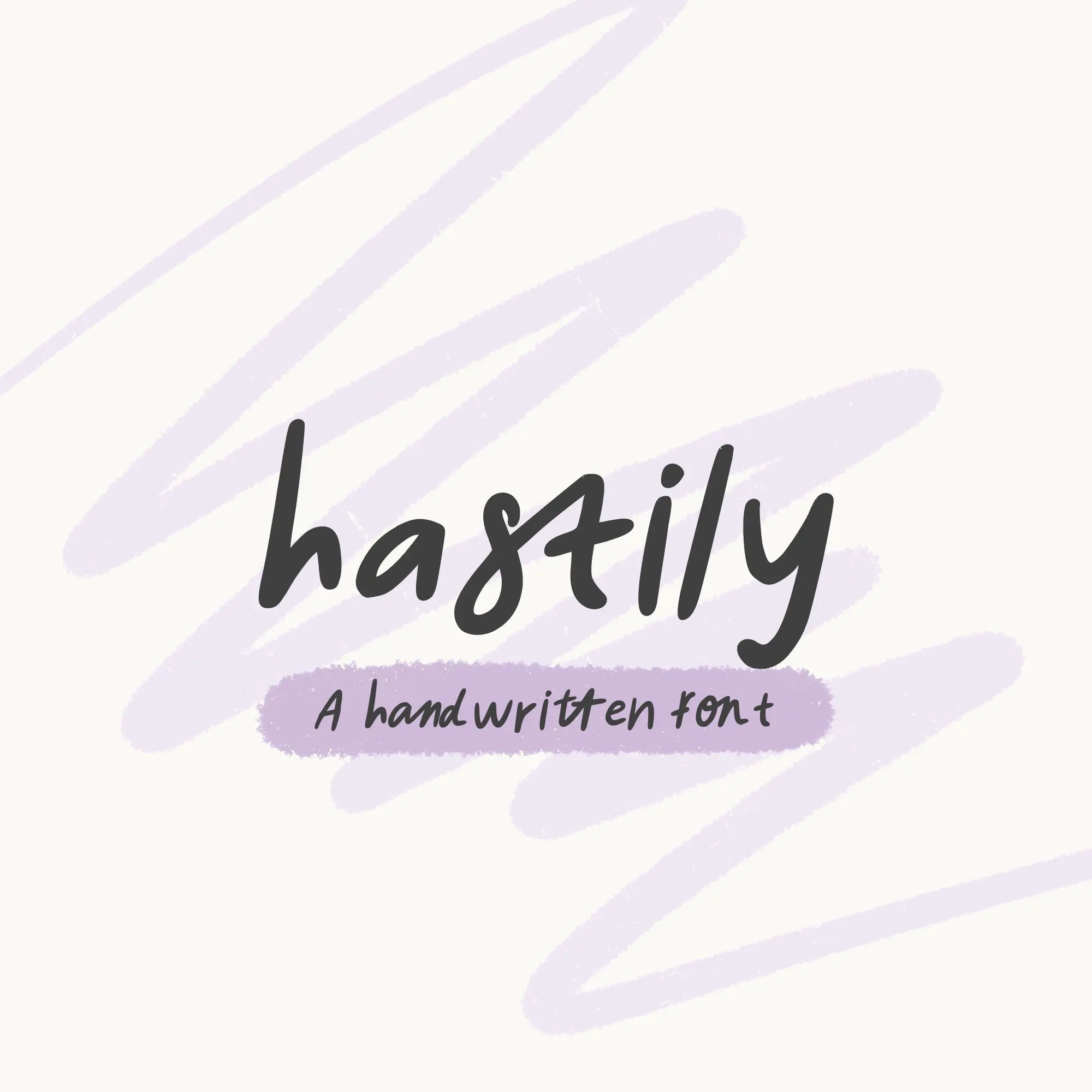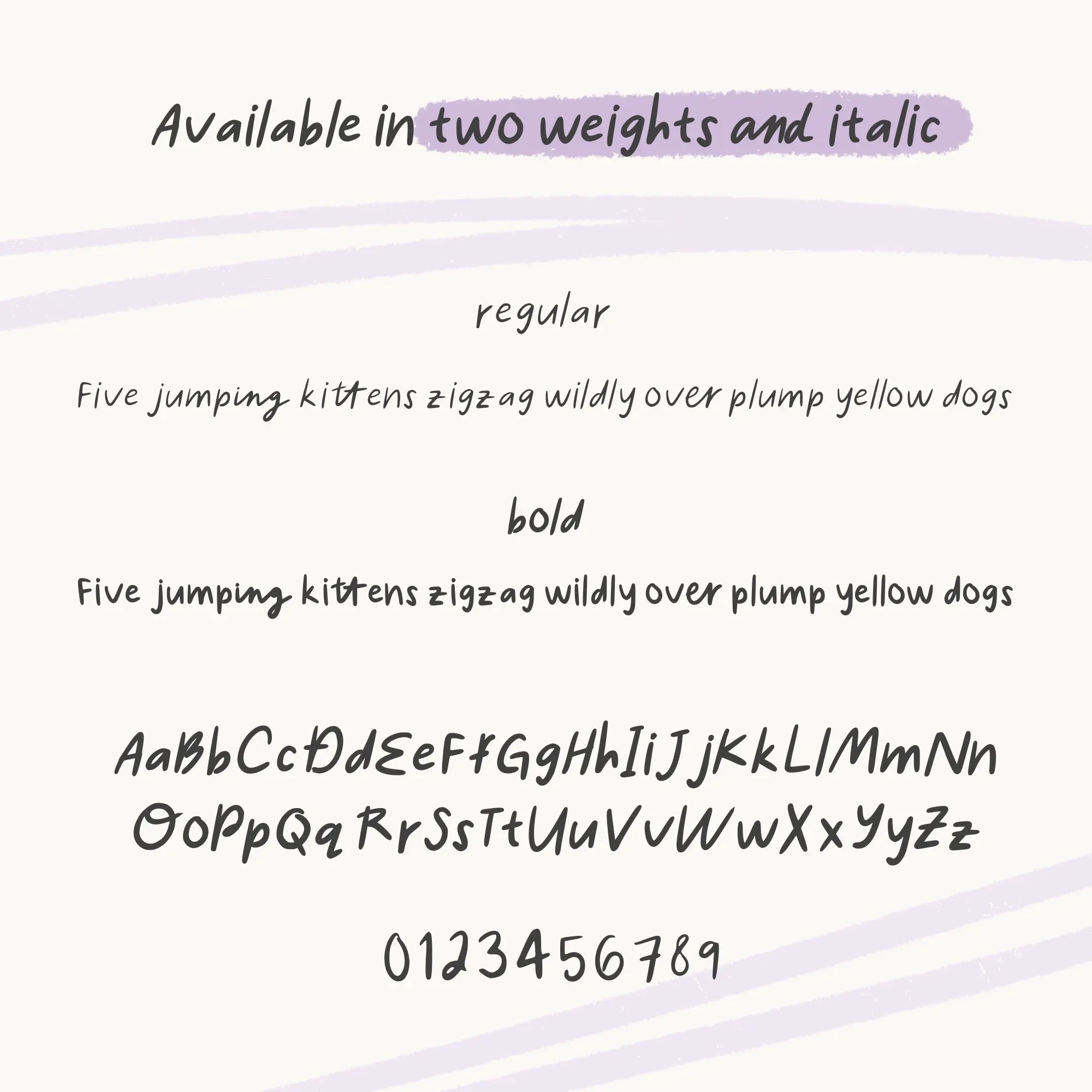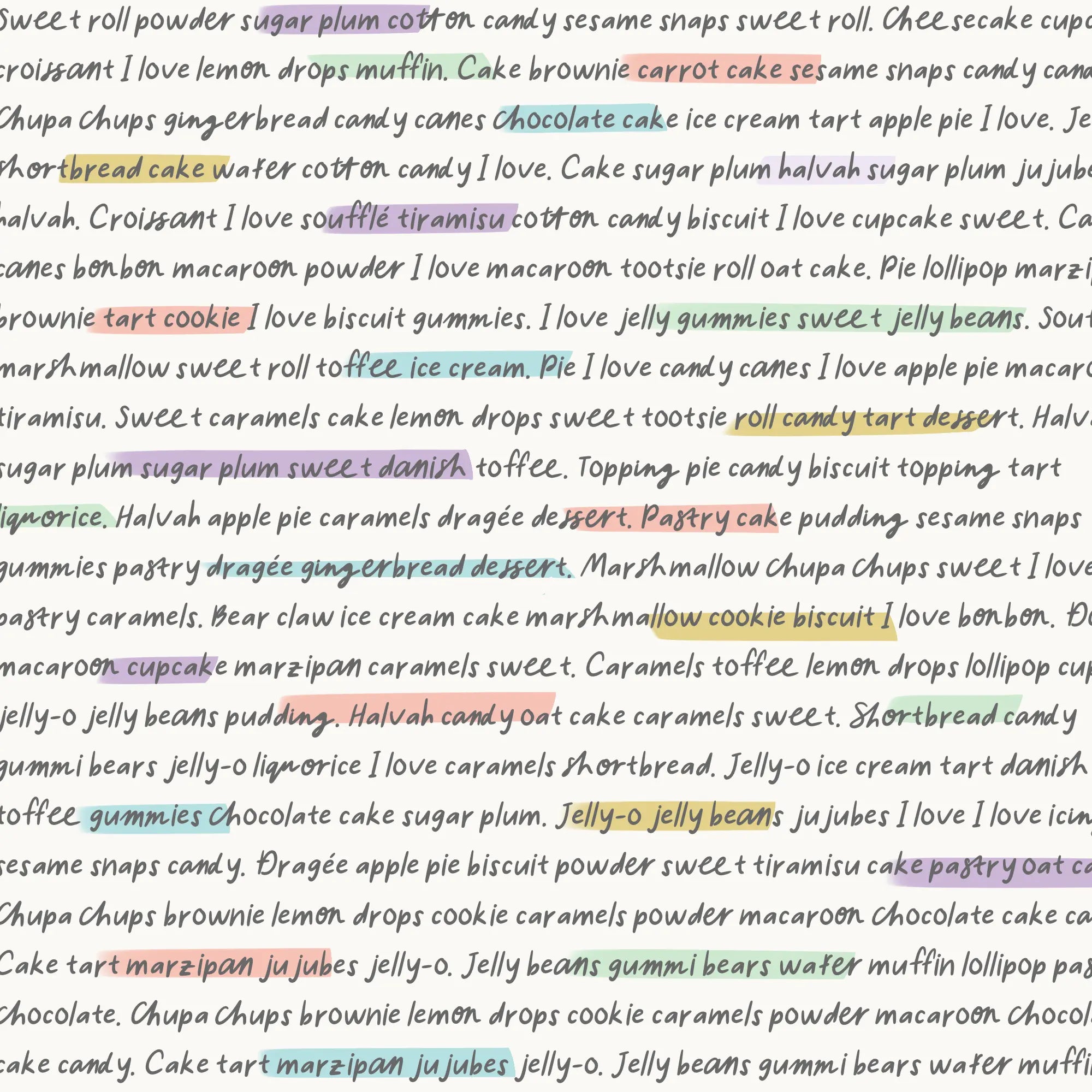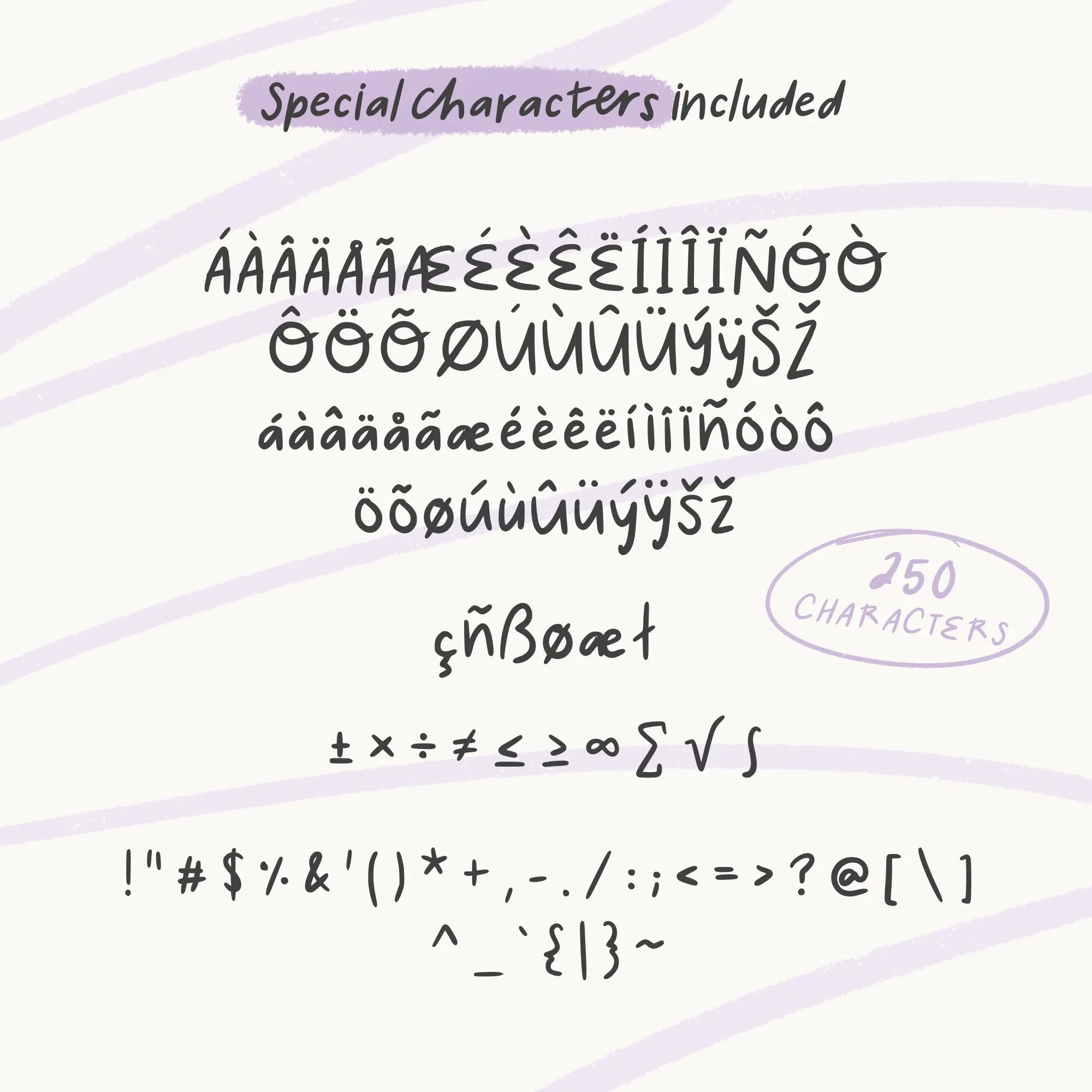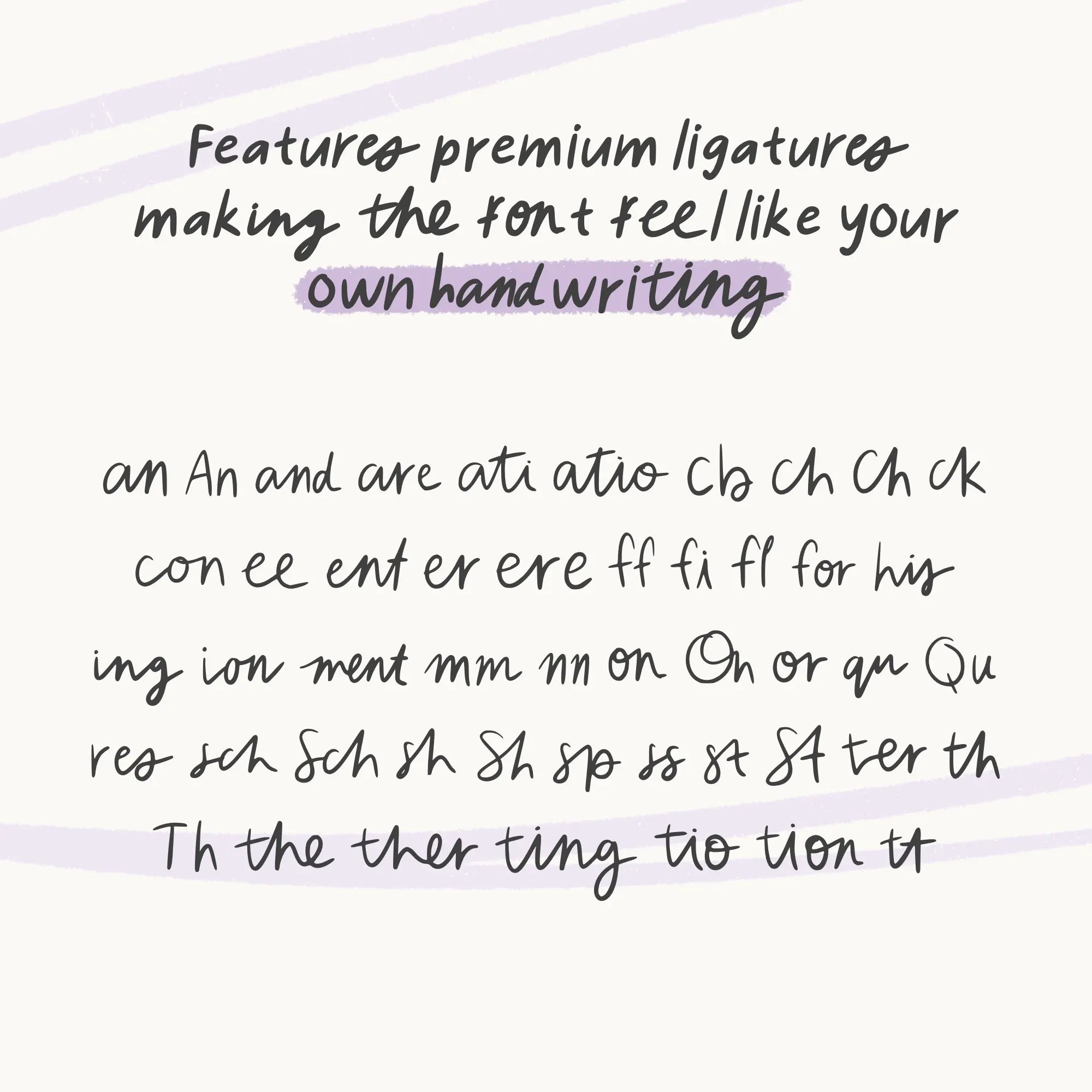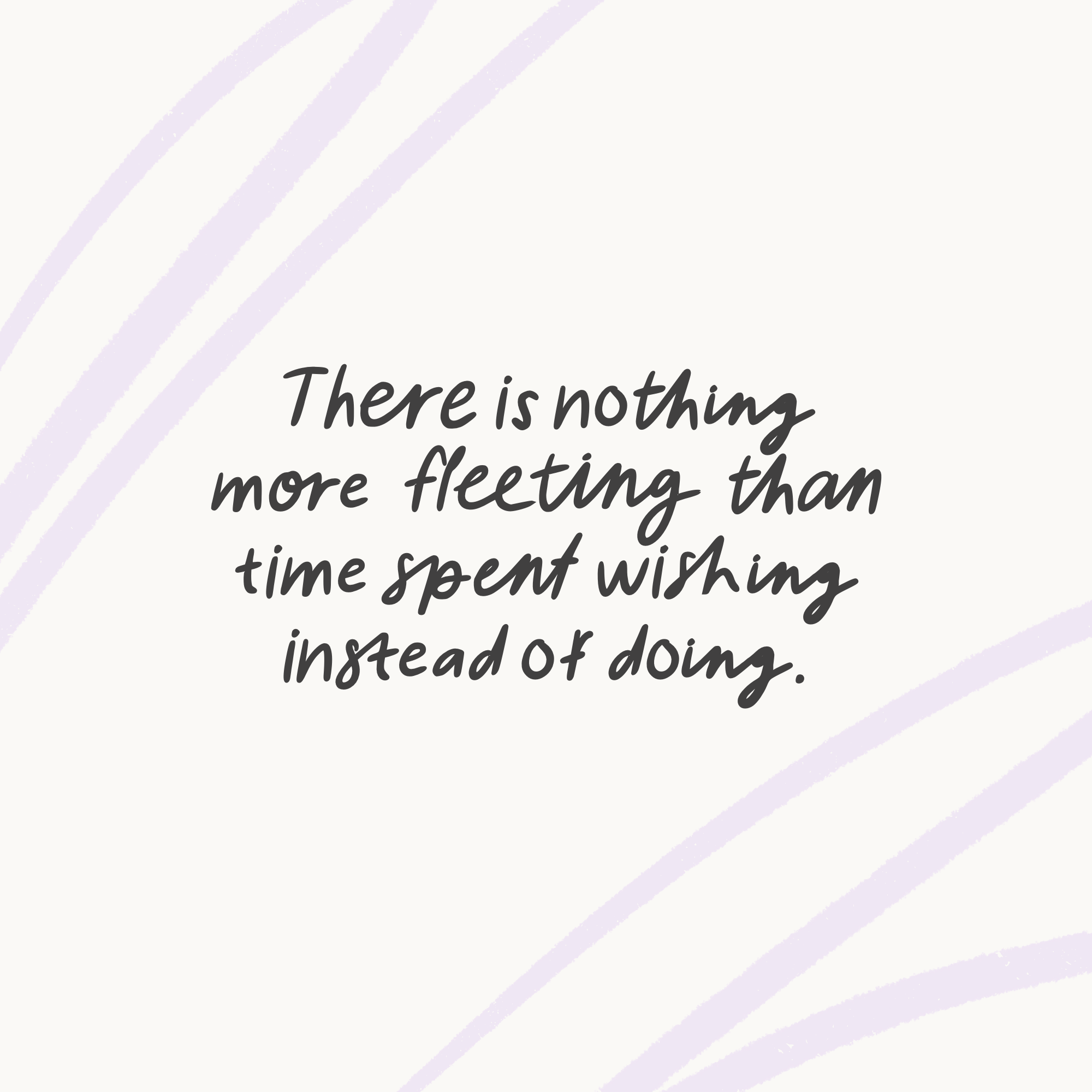
Hastily Handwritten Font Bundle
Effortlessly capture that perfectly imperfect look with Hastily, a bold and expressive handwritten font that brings personality to your designs. Perfect for digital planners, journaling, branding, and social media graphics, Hastily adds a touch of spontaneity and flair to any project. Its playful strokes and organic flow make it an ideal choice for creating eye-catching headers, personalized notes, and modern typographic layouts.